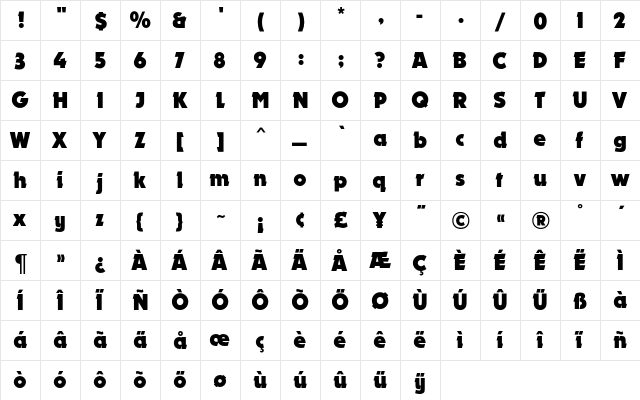
Dynamo MN Bold
Design Context for Dynamo MN Typeface
Dynamo MN is a composed and adaptable typeface that performs quietly and consistently across a wide range of design contexts. The heavy weight commands attention and anchors typographic hierarchies.